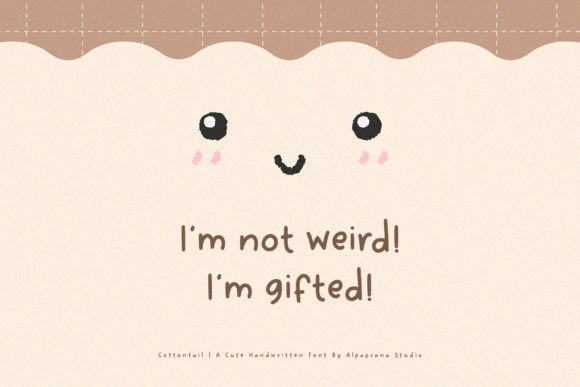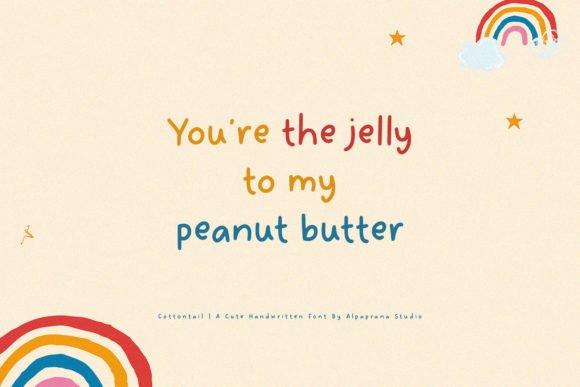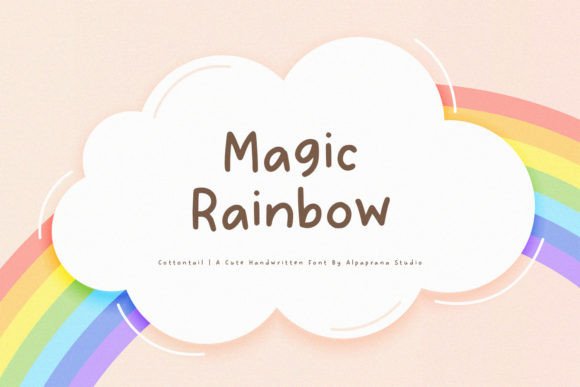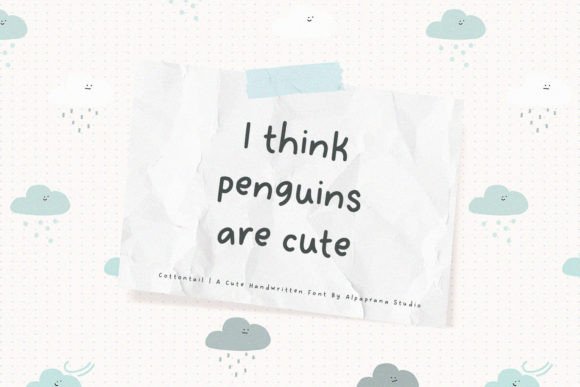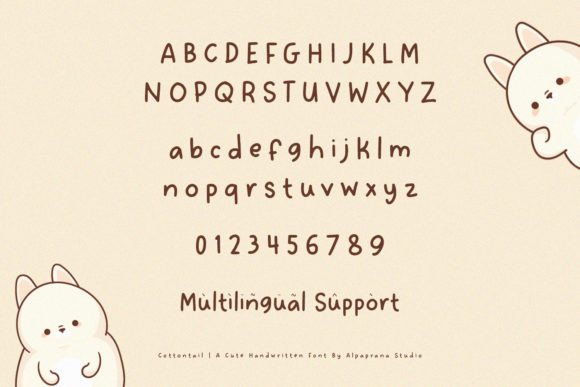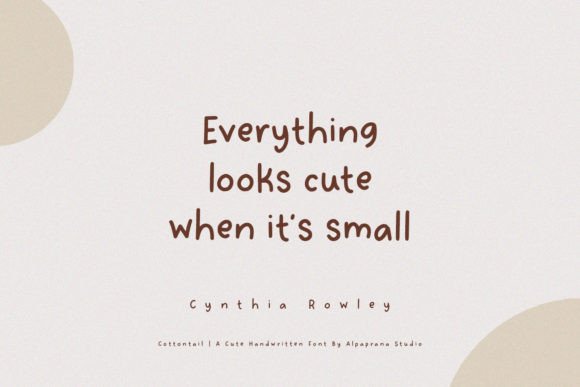
Cottontail Font: Elevate Your Design with a Touch of Whimsy
In the world of typography, fonts play a crucial role in conveying the tone and personality of a brand or design project. For designers and crafters looking to add a touch of whimsy and modernity to their work, the Cottontail font is an excellent choice. This handwritten display font seamlessly blends natural and modern feels, making it perfect for a wide range of applications.
The Characteristics of Cottontail Font
Cottontail is a carefully crafted handwritten display font that boasts a unique charm. Its natural and modern feels make it an excellent addition to any design project. The font’s characteristics include:
- Handwritten style: Cottontail’s handwritten style gives it a personal and approachable feel, making it perfect for designs that require a touch of warmth and personality.
- Natural and modern feels: The font’s natural and modern feels make it versatile and suitable for a wide range of design applications, from traditional to contemporary projects.
- Display font: Cottontail is designed as a display font, making it perfect for headlines, titles, and other attention-grabbing elements in your design.
Perfect Uses for Cottontail Font
Cottontail’s versatility makes it an excellent choice for various design projects. Here are some of the perfect uses for this beautiful font:
- Branding: Use Cottontail to create a unique and memorable brand identity that stands out from the crowd.
- Logo Design: The font’s bold and playful style makes it perfect for logo design, helping you create a lasting impression on your target audience.
- Lettering: Cottontail’s handwritten style makes it an excellent choice for lettering projects, adding a personal touch to your work.
- Logotype: Create a stunning logotype with Cottontail, making your brand’s name stand out in a crowded market.
- Clothing: Use Cottontail to add a touch of personality to your clothing designs, making them more appealing to your target audience.
- Poster and Magazine: The font’s bold and playful style makes it perfect for poster and magazine designs, grabbing the reader’s attention and conveying your message effectively.
- Packaging: Cottontail is an excellent choice for packaging designs, adding a touch of whimsy and modernity to your product’s packaging.
- Posters and Shopping Bags: Use Cottontail to create eye-catching posters and shopping bags that showcase your brand’s personality.
- T-shirts: The font’s bold and playful style makes it perfect for t-shirt designs, making your apparel stand out from the crowd.
- Book Covers: Cottontail is an excellent choice for book covers, adding a touch of personality and whimsy to your book’s design.
- Photography: Use Cottontail to add a touch of modernity and personality to your photography projects, making them more engaging and memorable.
- Special Events: The font’s bold and playful style makes it perfect for special event designs, such as weddings, parties, and other celebrations.
Why Choose Cottontail Font?
With so many fonts available, why choose Cottontail? Here are some reasons why designers and crafters love this font:
- Unique and Memorable: Cottontail’s unique and memorable style makes it perfect for designs that require a touch of personality and whimsy.
- Versatile: The font’s versatility makes it suitable for a wide range of design applications, from traditional to contemporary projects.
- Easy to Read: Despite its bold and playful style, Cottontail is easy to read, making it perfect for designs that require a clear and concise message.
- High-Quality: Cottontail is a high-quality font, carefully crafted to ensure that it looks great in any design application.
In conclusion, Cottontail font is an excellent choice for designers and crafters looking to add a touch of whimsy and modernity to their work. Its natural and modern feels, combined with its bold and playful style, make it perfect for a wide range of design applications. Whether you’re working on a branding project, logo design, lettering, or any other design project, Cottontail is sure to elevate your work and make it more engaging and memorable.